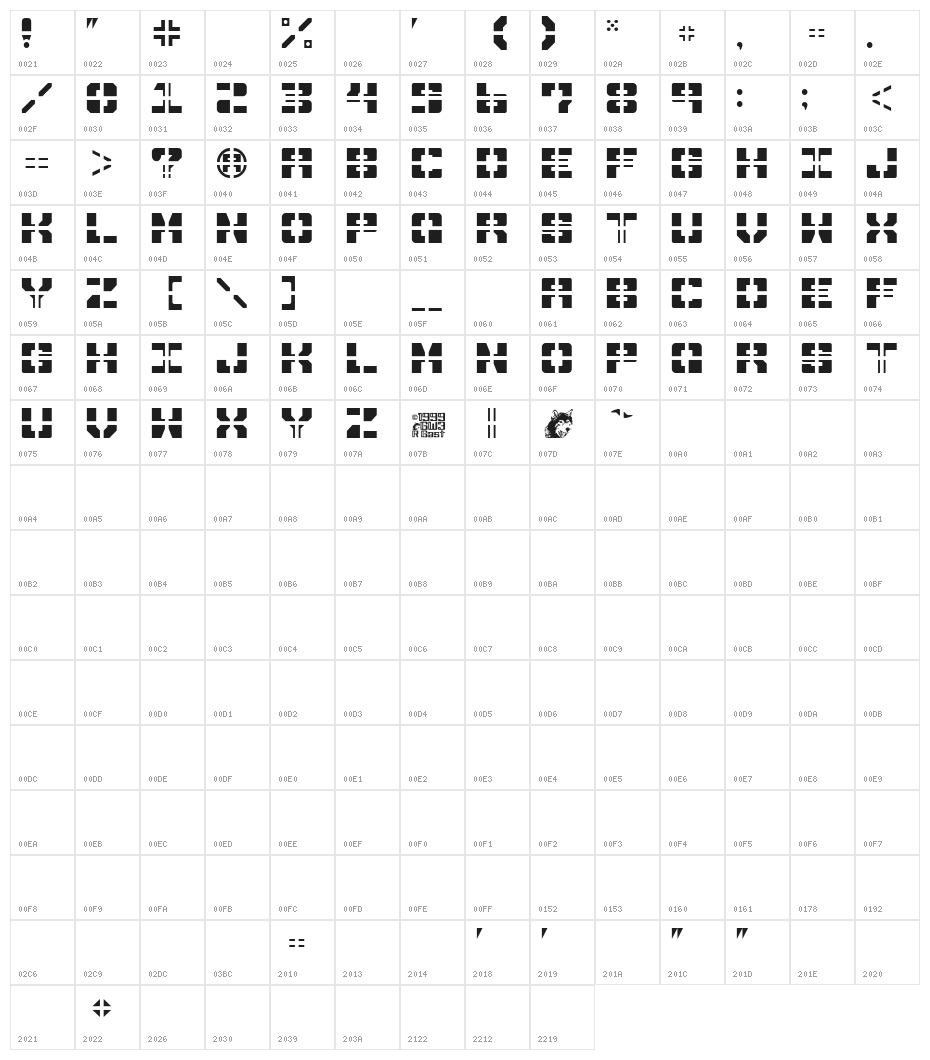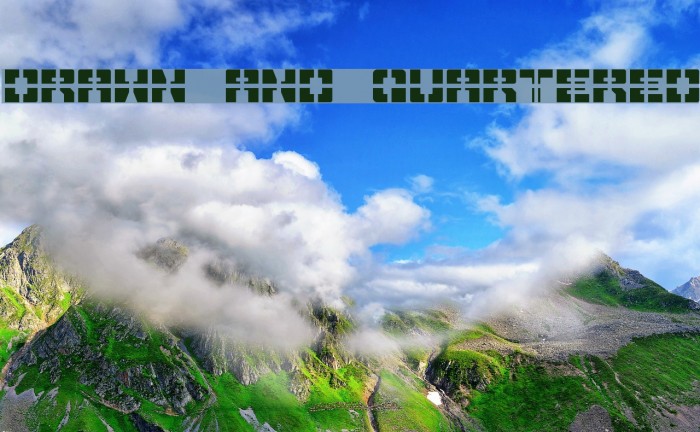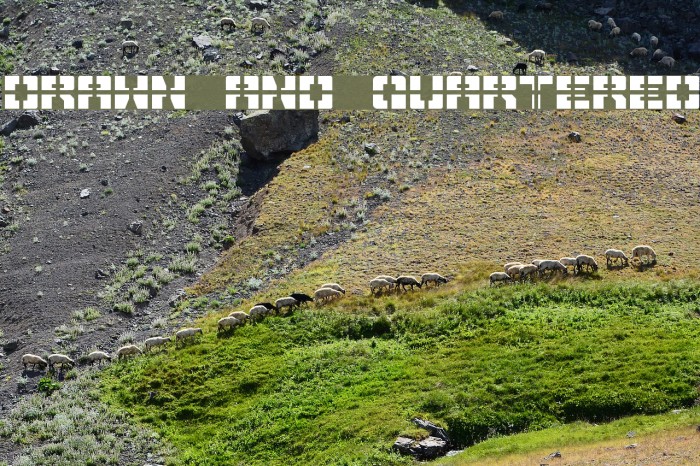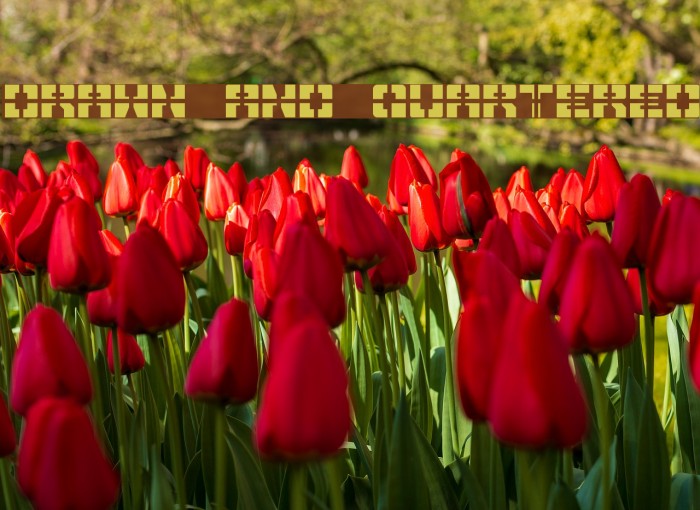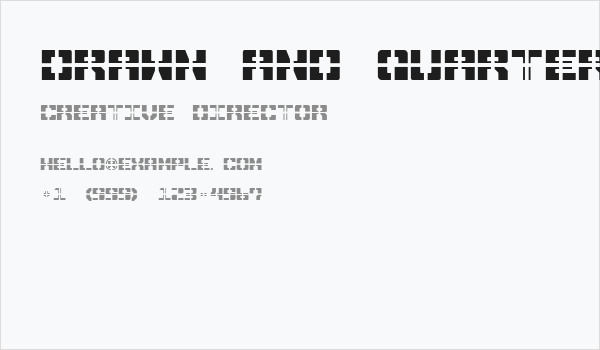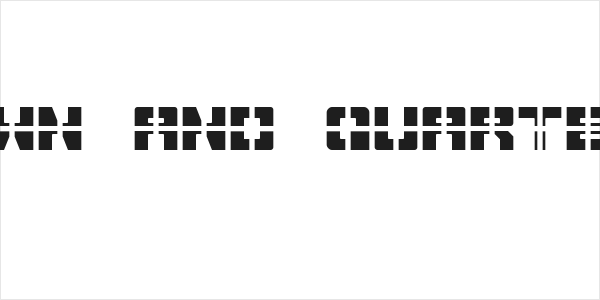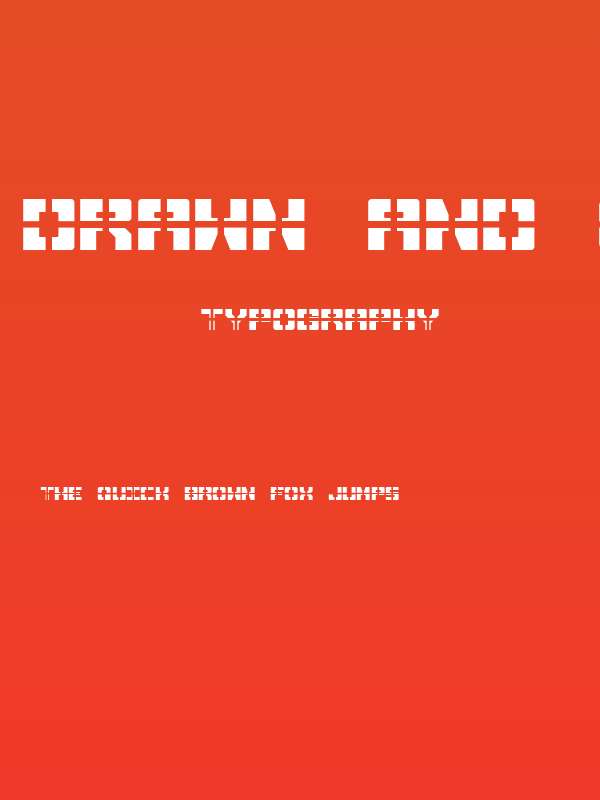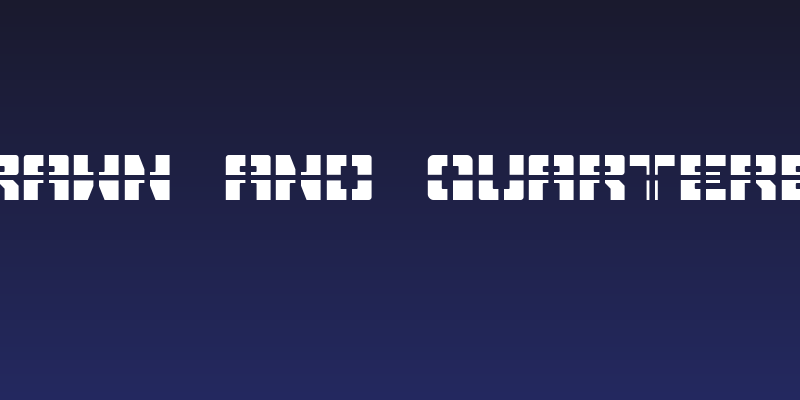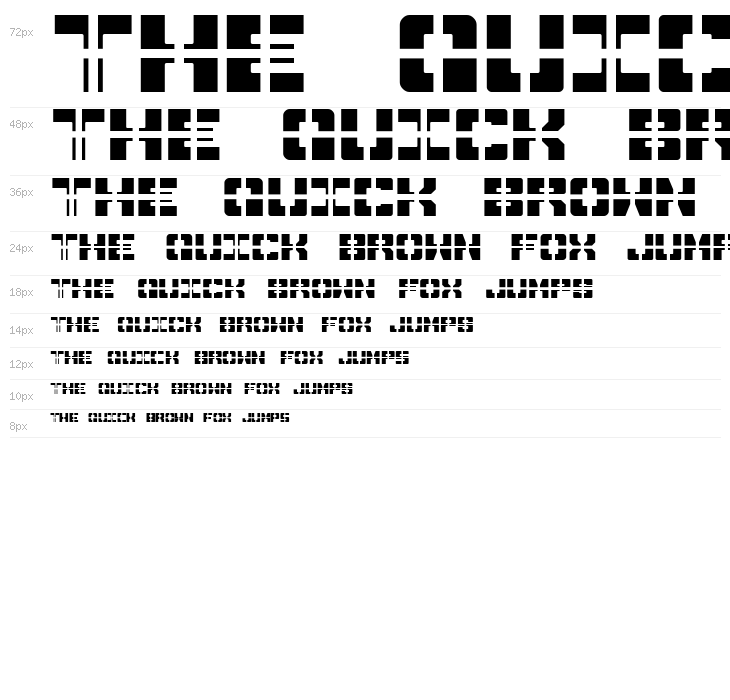
Drawn And Quartered Font
Drawn And Quartered Description
This font features a bold, geometric design with a distinct stencil-like appearance. The characters are composed of solid, blocky shapes with strategic cuts and separations, creating a fragmented yet cohesive look. The uppercase and lowercase letters maintain a consistent style, with the uppercase being slightly more pronounced. Numbers and special characters follow the same design principles, ensuring uniformity across all glyphs. The font's unique style makes it stand out, offering a modern and edgy aesthetic that is both eye-catching and versatile.
| Proposed Projects | Ideal for branding, posters, album covers, and any project requiring a strong visual impact. |